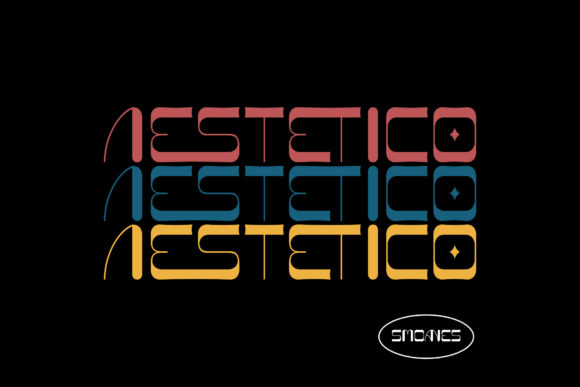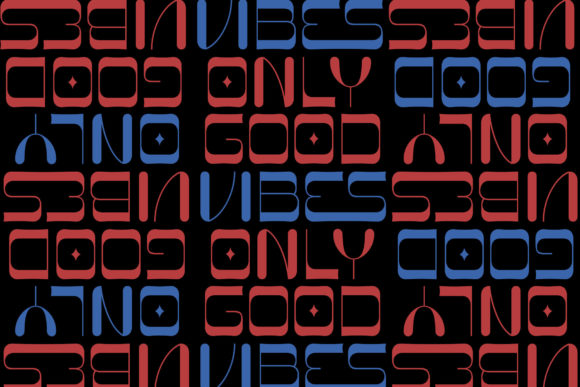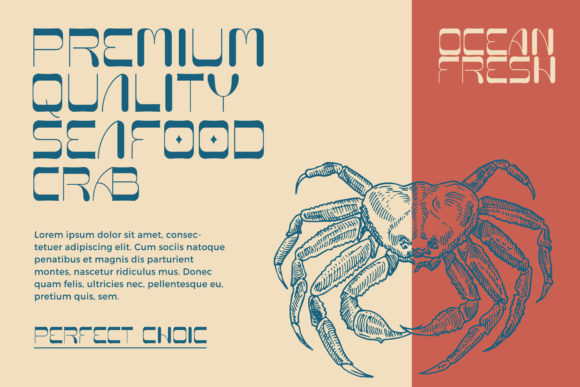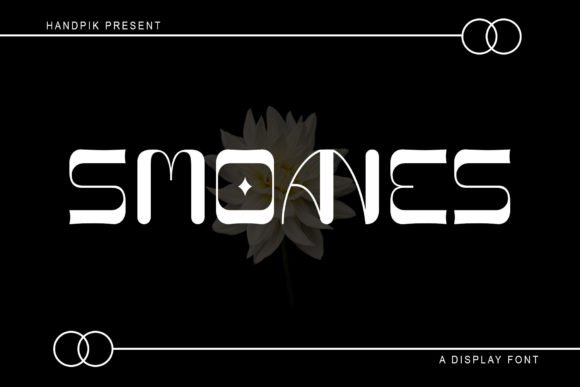
Introduction to Smoanes Font
Smoanes is a clear and extremely unusual display font.
With geometrical-looking characters and an unearthly vibe, this font is the best choice for adventure magazines, sci-fi movies, interesting books, dramatic descriptions, and more .